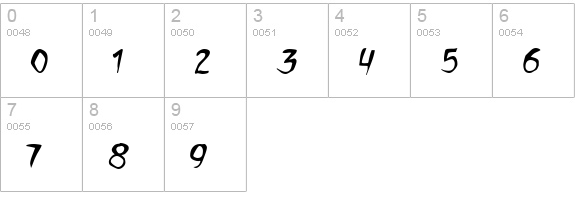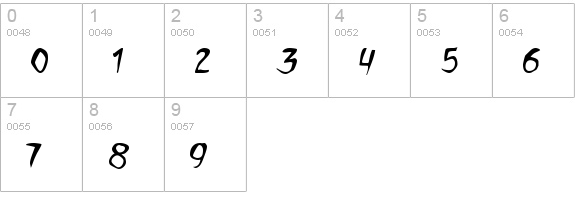
Treasure Font Details
Treasure font is a magnificent typeface that exudes elegance and allure. Its captivating curves and exquisite details make it the perfect choice for any project that requires a touch of sophistication and charm. With its generous x-height and balanced letterforms, Treasure font effortlessly combines legibility with artistic flair. This versatile font is suitable for a wide range of applications, from luxurious logos and branding to stylish invitations and editorial designs. Its timeless appeal transcends trends, making it a timeless choice that will never go out of style. What makes Treasure font even more enticing is that it is available for free download at FontsMarket.com. This means that you can effortlessly add a touch of opulence to your designs without breaking the bank. With just a few clicks, you can enhance your creative projects with this stunning typeface. Whether you're a professional designer or a passionate hobbyist, Treasure font offers a world of possibilities. Its graceful lines and graceful curves will effortlessly elevate your designs and leave a lasting impression on your audience. So why wait? Discover the beauty of Treasure font today and let your creativity shine.